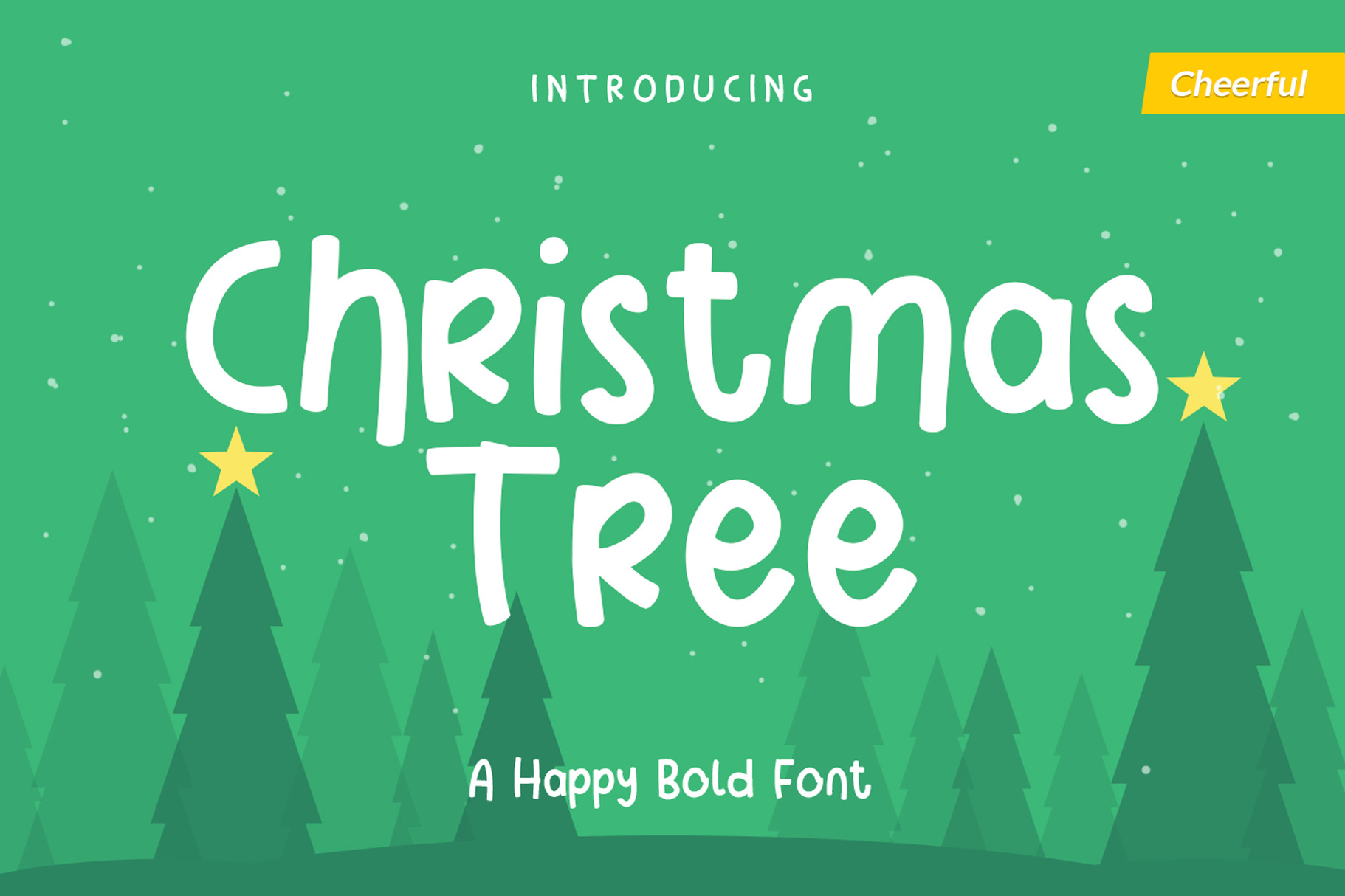
Christmas Tree is playful display font, perfect theme for your christmas and holiday, it gives happiness to your designs
This font is perfect for branding, logo, store, blog, invitations any many more!
Christmas Tree Font also Lightweight, even so contains All Standard glyphs and punctuations